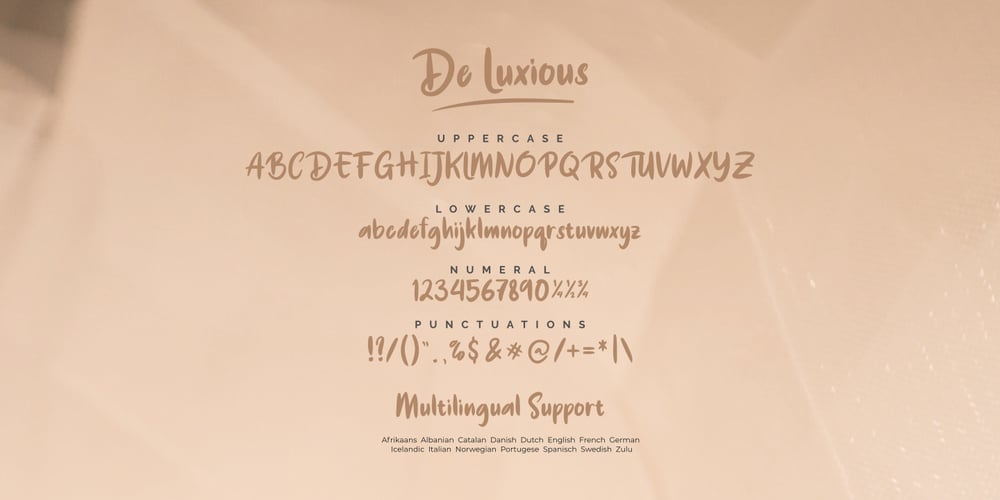
De Luxious Font Family was designed by Java Pep and published by Java Pep. De Luxious contains 1 styles and family package options. Give a touch your project to make it look classy and outstanding with De Luxious font. This font is perfect for logo, personal branding, branding identity, signature, etc, and can make today awesome. De Luxious includes uppercase, lowercase, numeral, and punctuations, as well as multi-lingual support for 15 languages (Afrikaans, Albanian, Catalan, Danish, Dutch, English, French, German, Icelandic, Italian, Norwegian, Portuguese, Spanish, Swedish, Zulu ) Thanks for using this font. If you have any problem, don’t hesitate to give me a message java.indonesian@yahoo.com. Have nice a day.